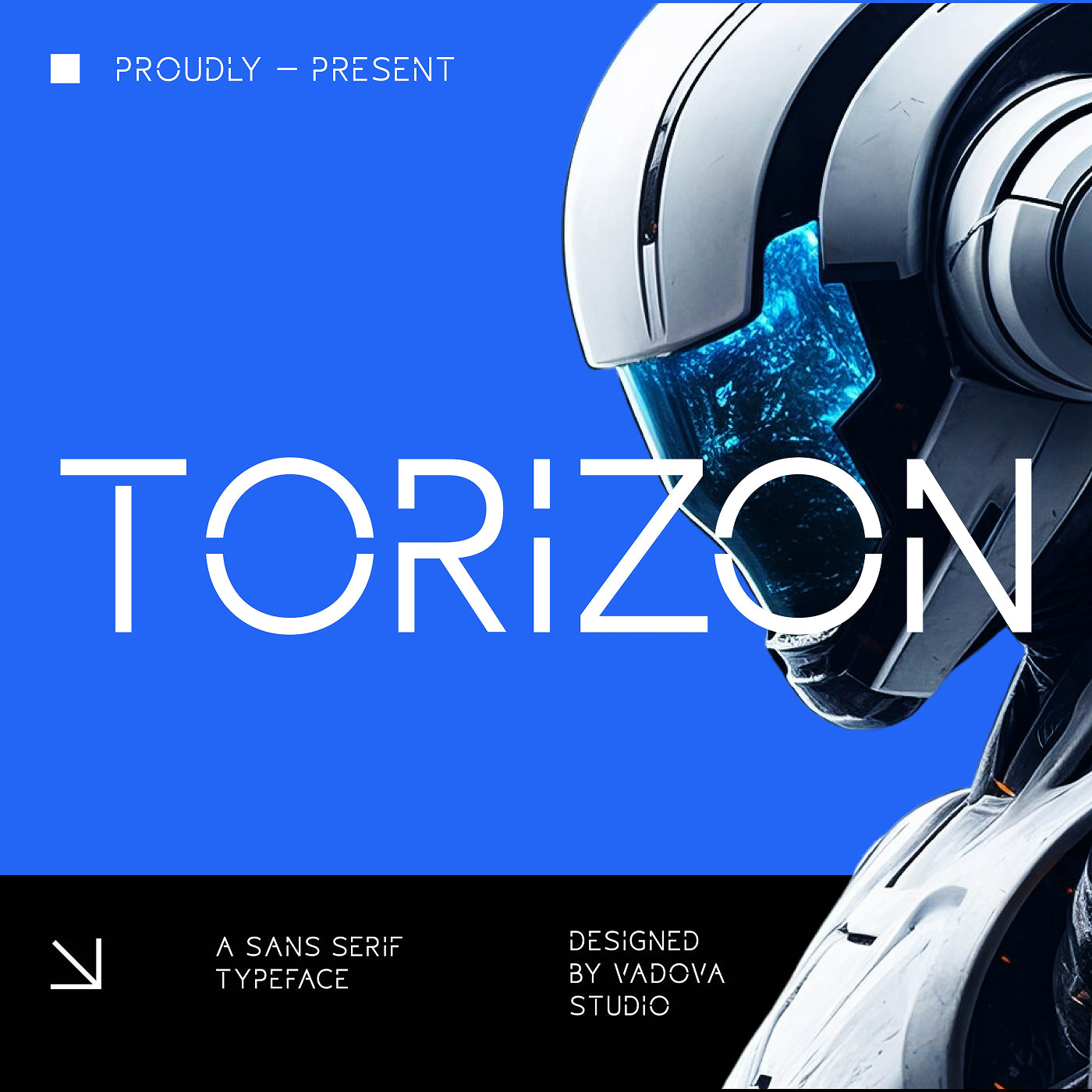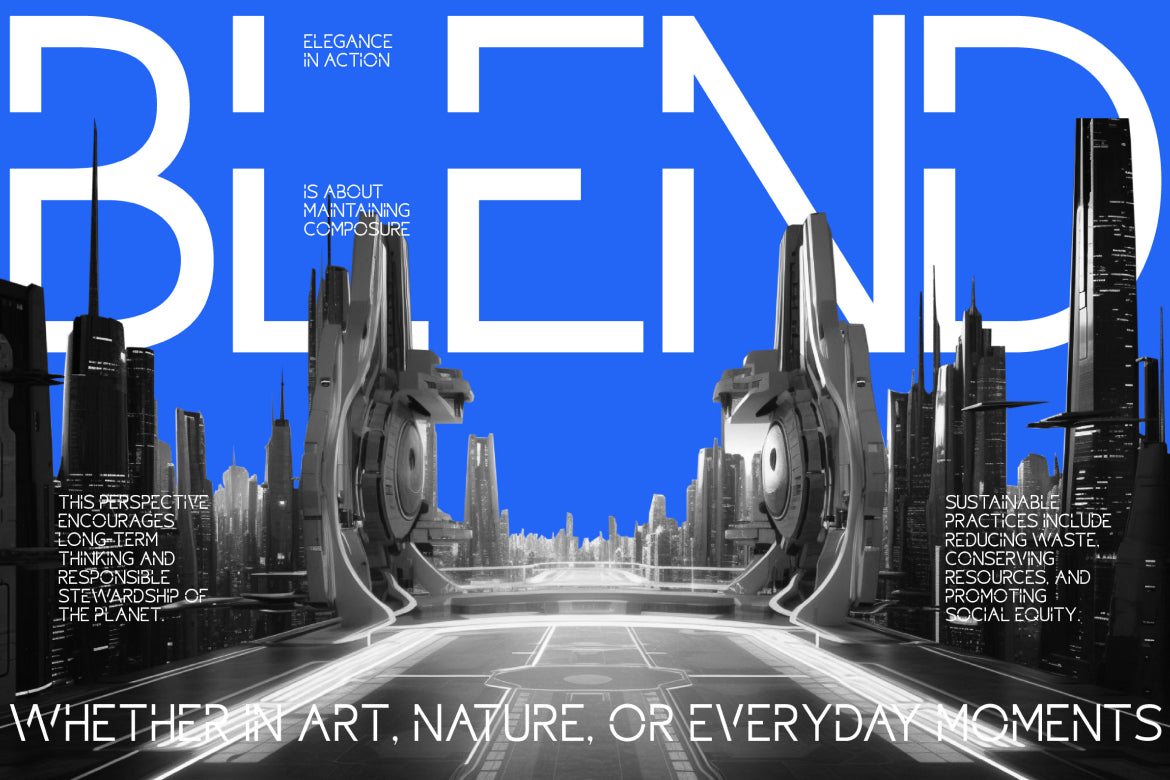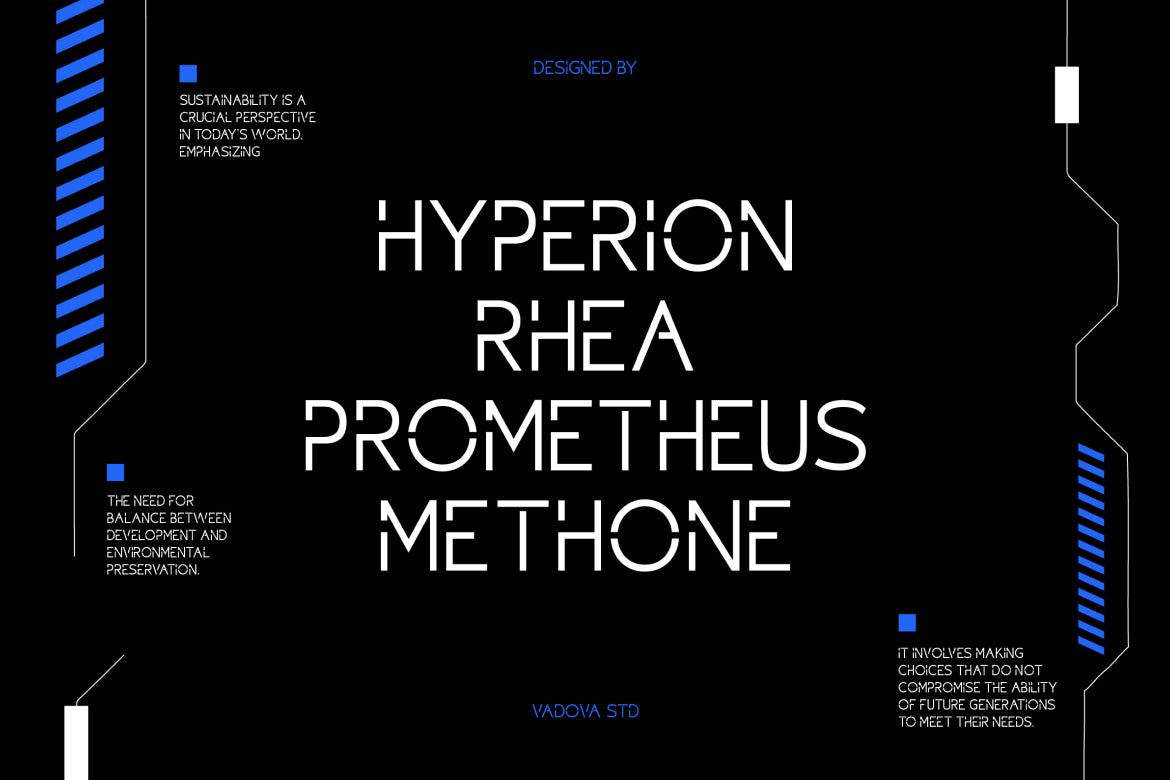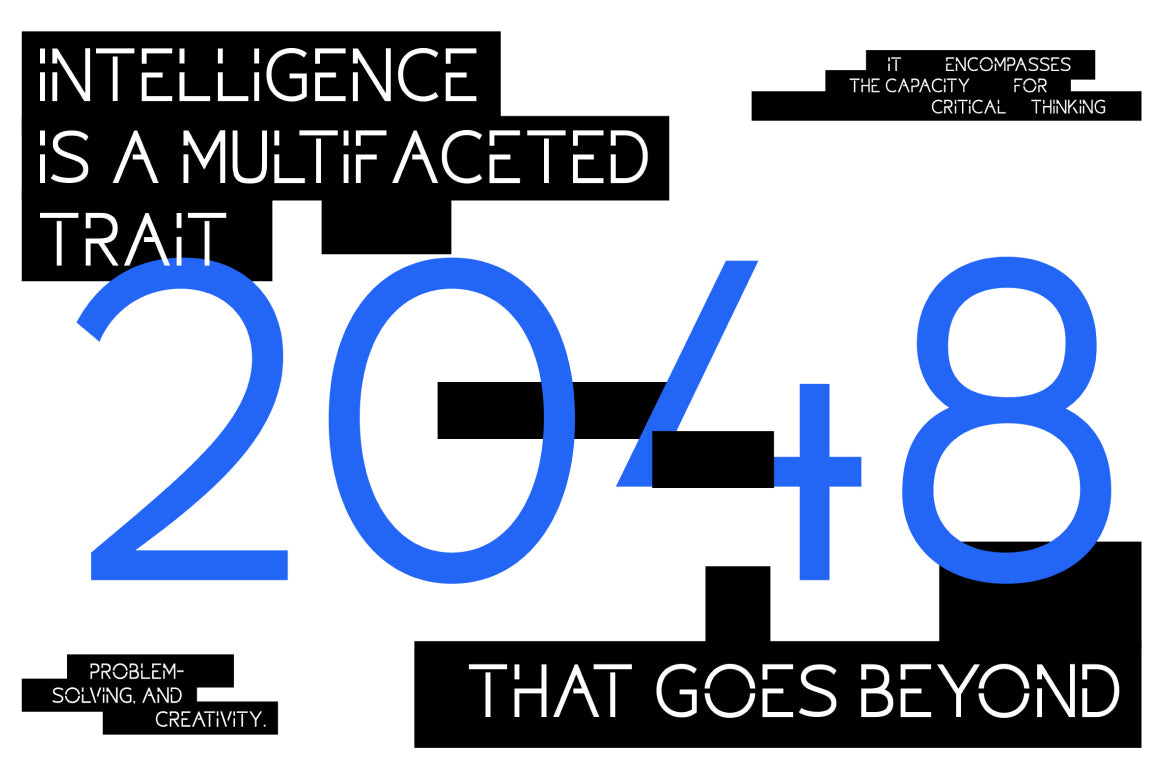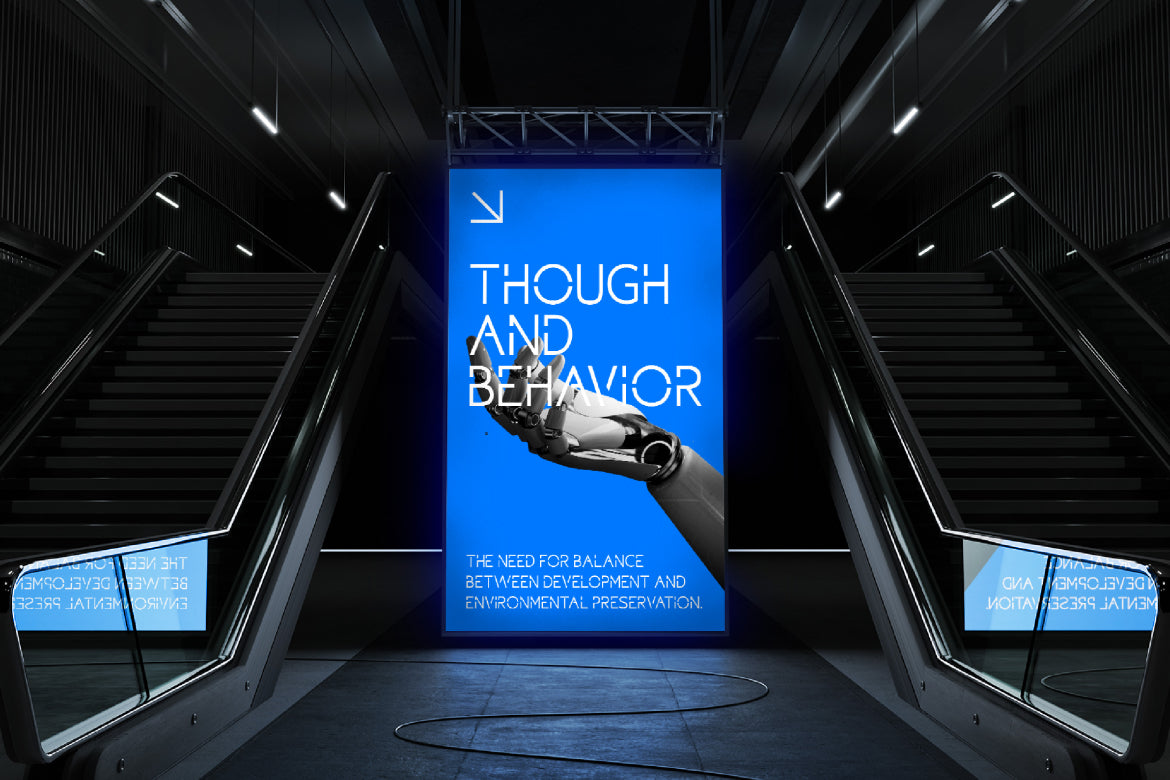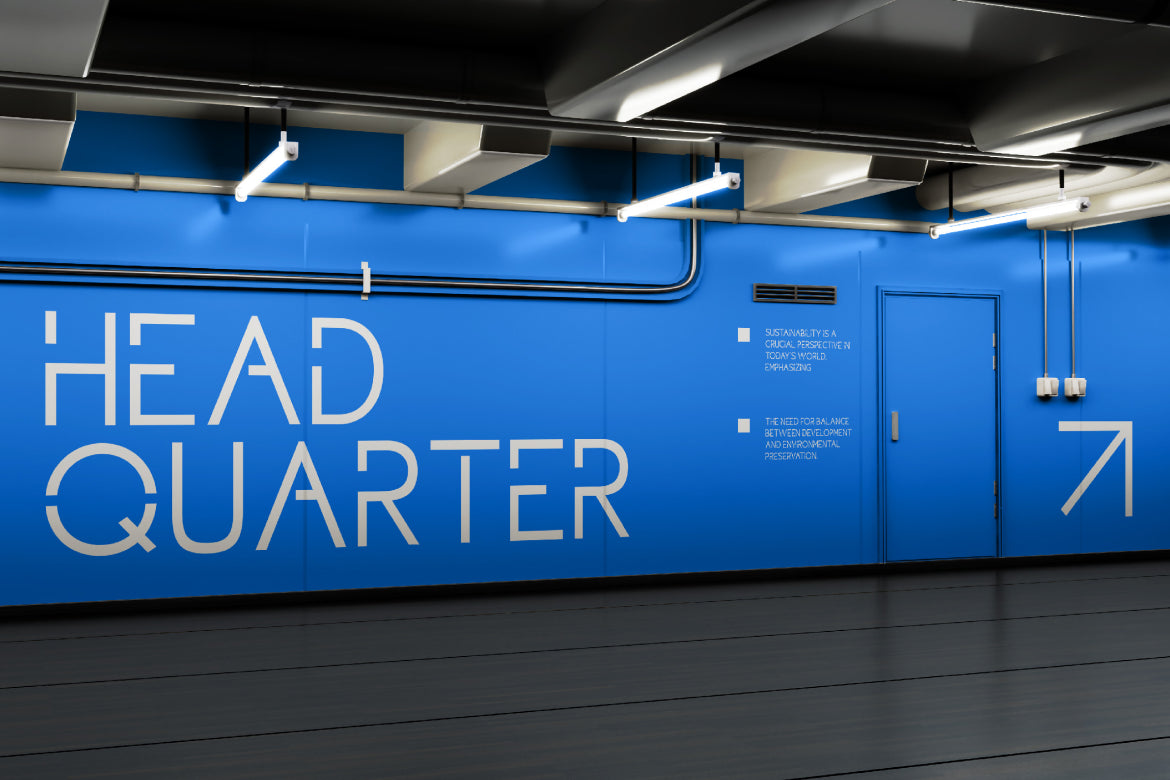
Torizon Sans Serif Typeface Font
Torizon is a sleek, futuristic sans-serif with a digital edge and sci-fi soul. Its bold geometry and sliced-through elements evoke a sense of progress, speed, and innovation. The font feels clean, modern, and cinematic perfect for tech-forward branding and bold storytelling. Designed for future-facing industries and creatives, Torizon shines in sci-fi posters, tech startups, VR/AR branding, esports, YouTube thumbnails, and AI or robotics presentations. Its high-tech aesthetic makes it ideal for digital agencies and content creators on platforms like Instagram.
Suitable for futuristic branding, tech startup logos, sci-fi movie titles, game UI, and NFT visuals. It fits fashion campaigns, editorial layouts, and product packaging. Ideal for websites, app interfaces, YouTube thumbnails, social media posts, pitch decks, and AR/VR environments. Great for motion graphics, stream overlays, and digital presentations.
Torizon Sans Serif Typeface Font is a modern, geometric font available in TTF, OTF, and WOFF formats, featuring uppercase characters, numerals, and punctuation. Its sleek design is suitable for various branding and digital applications, making it a versatile choice for tech-forward industries.